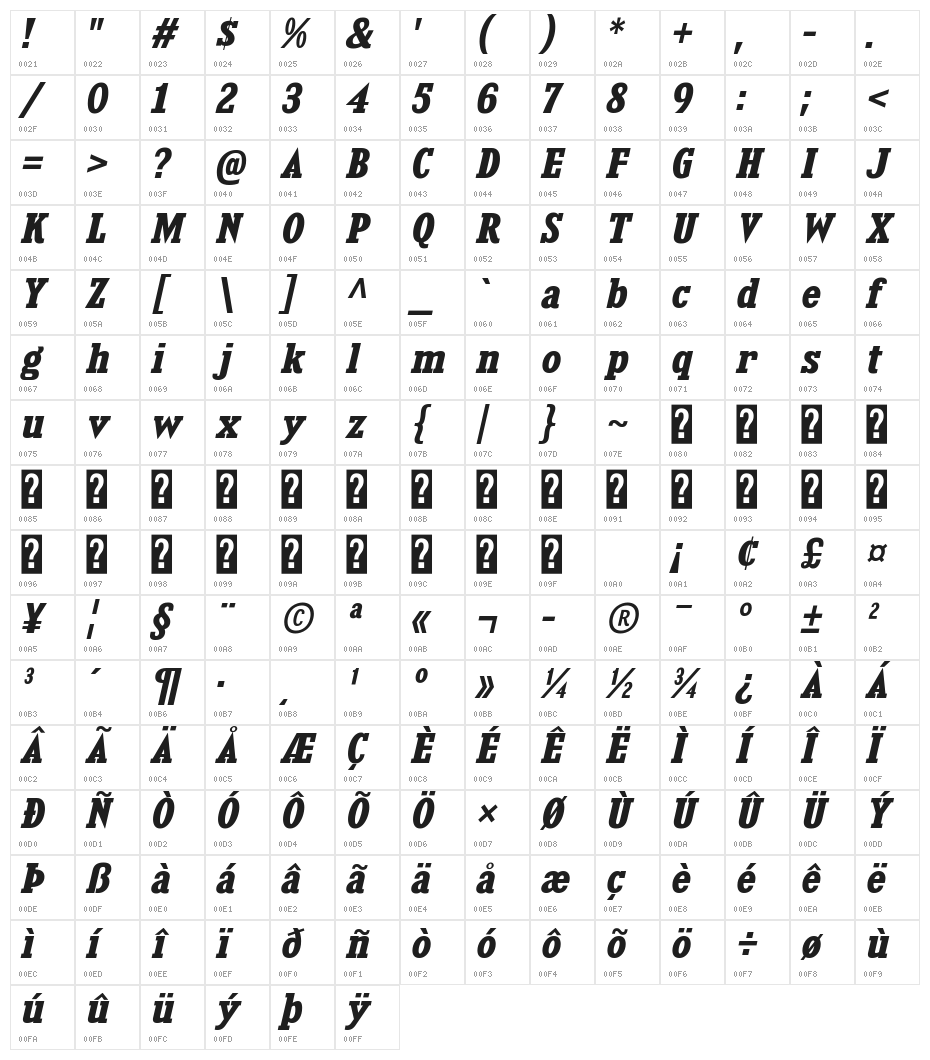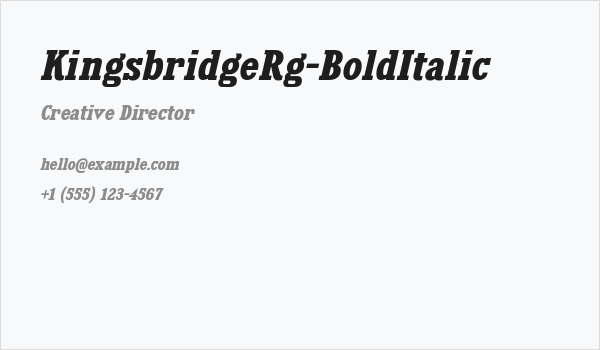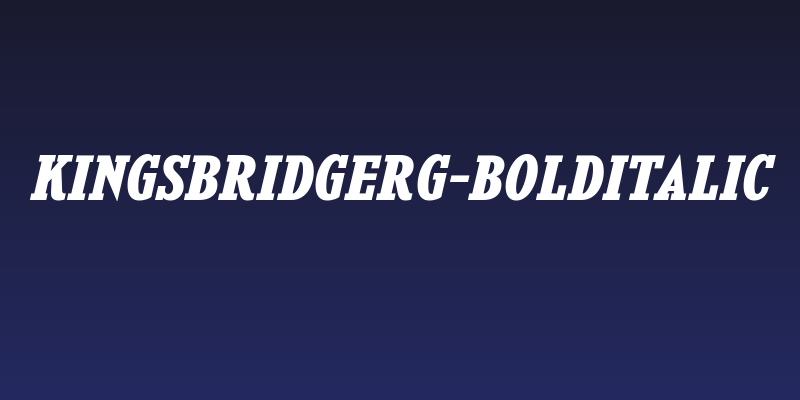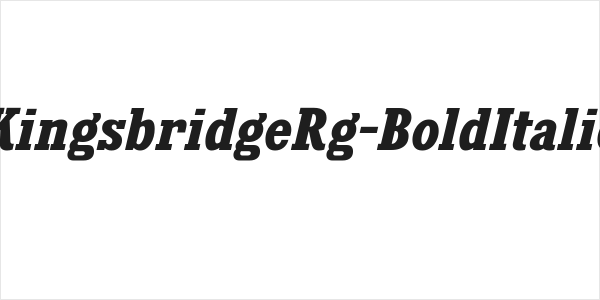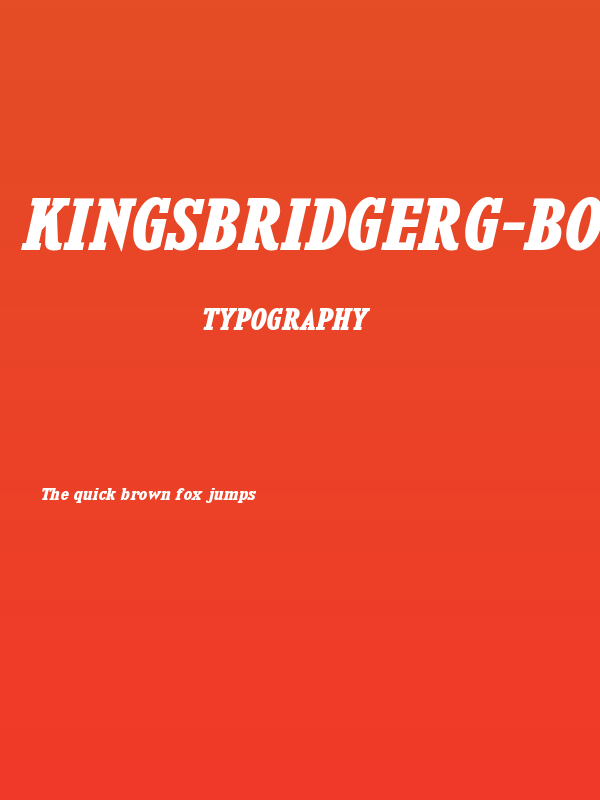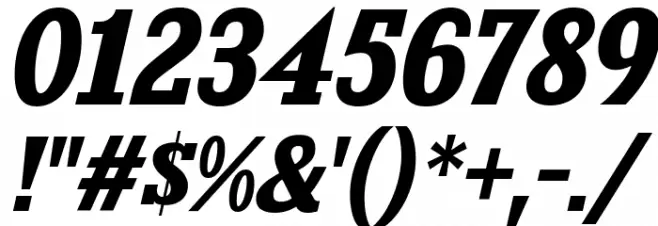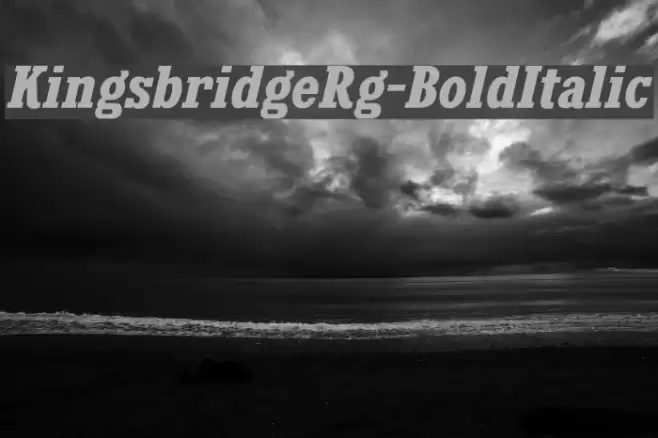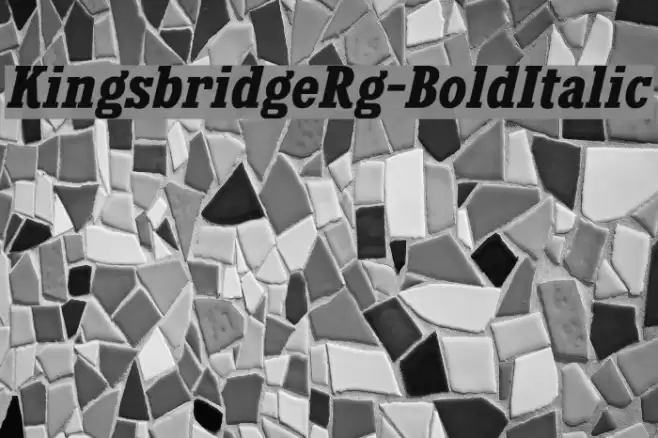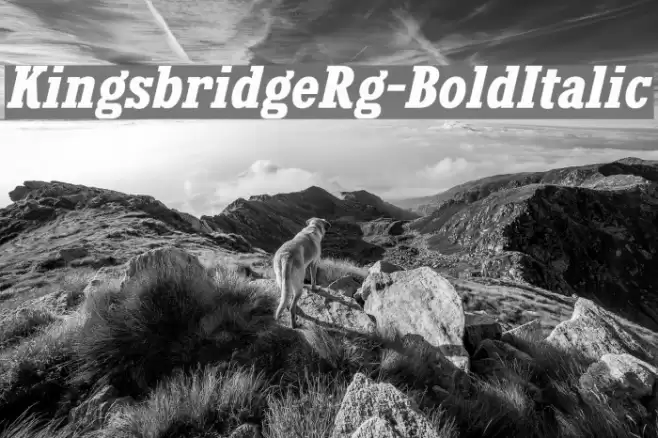
KingsbridgeRg-BoldItalic Font
KingsbridgeRg-BoldItalic Description
This font features a bold and italicized style, combining strength with elegance. The characters are sharply defined with a slight slant, giving a dynamic and energetic feel. The serifs are pronounced, adding a classic touch to the overall modern design. The uppercase letters are robust and commanding, while the lowercase letters maintain a consistent flow, enhancing readability. Numbers and special characters are designed with the same boldness, ensuring uniformity across all text elements. This font is ideal for making a strong visual impact while maintaining a sense of sophistication.
| Use Case | Headlines, Logos, Editorial design |
| Proposed Projects | Ideal for headlines, branding, and editorial design where a strong, elegant presence is needed. |